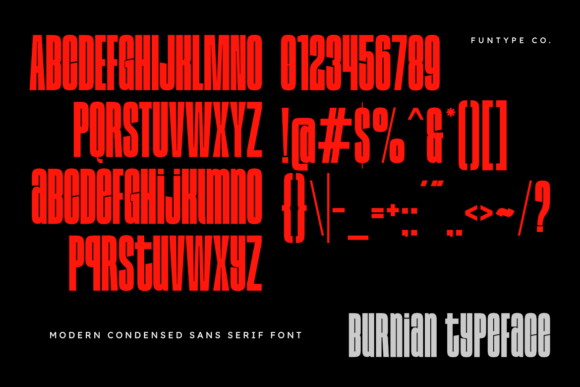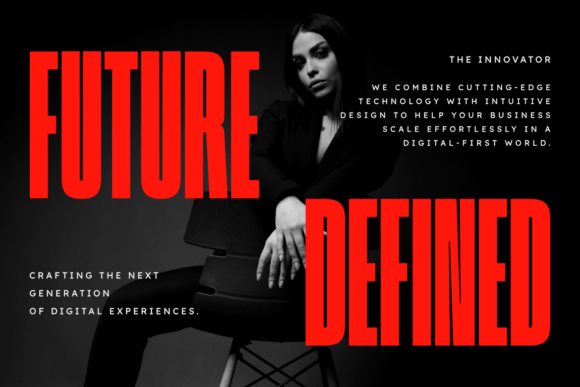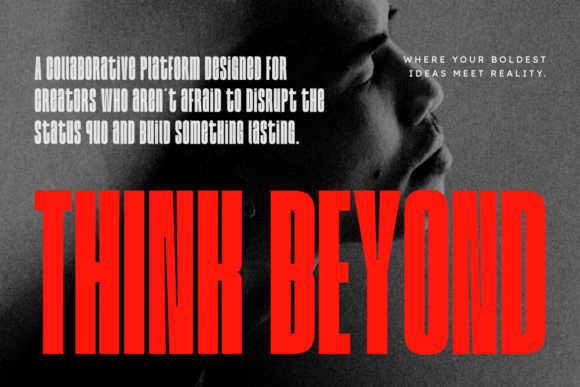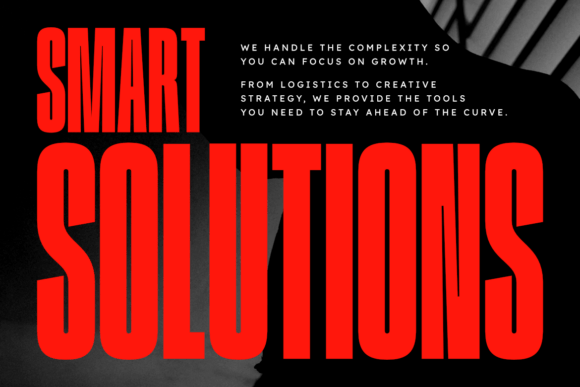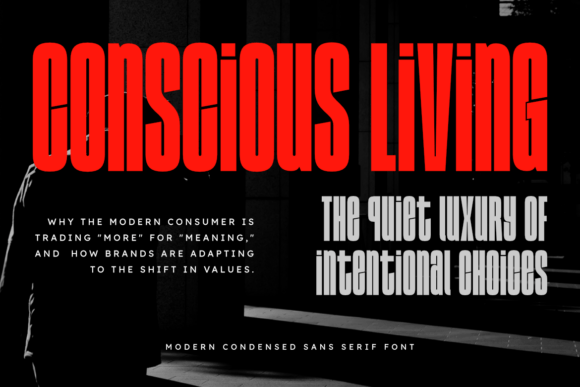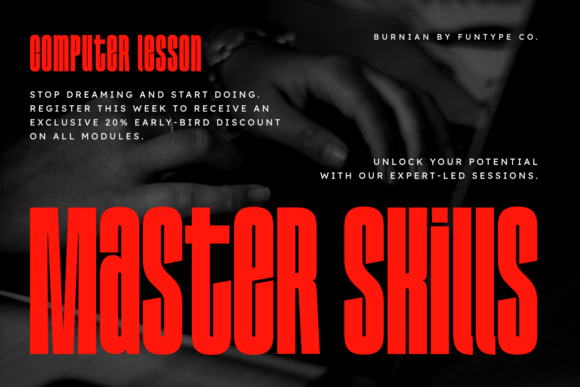
Introducing Burnian Font: Elevate Your Design with Bold Elegance
In the world of typography, a well-crafted font can make all the difference in elevating your design from ordinary to extraordinary. Burnian Font is a stunning example of a bold and elegant condensed sans serif font, specifically designed to make an impact. With its tall structure and clean geometric lines, Burnian is the perfect choice for designers and crafters looking to create strong headlines, modern posters, album covers, lifestyle graphics, branding, and high-impact advertising.
The Design Philosophy Behind Burnian
Burnian’s design is rooted in simplicity and confidence. Its clean lines and geometric structure give it a professional and striking appearance, making it ideal for designers who want to make a statement. The font’s tall and condensed structure allows for maximum impact, even at smaller sizes, making it versatile for use in a variety of applications.
Key Features of Burnian Font
- Bold and Elegant: Burnian’s bold design ensures that your text stands out, while its elegant lines add a touch of sophistication.
- Condensed Sans Serif: The font’s condensed structure makes it perfect for use in tight spaces, while its sans serif design ensures clarity and readability.
- Tall Structure: Burnian’s tall structure gives it a commanding presence, making it ideal for headlines and titles.
- Clean Geometric Lines: The font’s clean lines ensure that your design looks professional and polished.
Use Cases for Burnian Font
Burnian’s versatility makes it suitable for a wide range of design applications. Here are some ideas to get you started:
- Headlines and Titles: Use Burnian to create bold and eye-catching headlines that grab attention.
- Posters and Flyers: Create modern and striking posters and flyers with Burnian’s confident design.
- Album Covers: Give your music designs a professional edge with Burnian’s elegant and bold typography.
- Lifestyle Graphics: Use Burnian to create stunning lifestyle graphics that showcase your brand’s personality.
- Branding and Identity: Establish a strong brand identity with Burnian’s unique and memorable design.
- Advertising: Create high-impact advertisements that stand out with Burnian’s bold and confident typography.
Why Choose Burnian Font?
With so many fonts available, why choose Burnian? Here are just a few reasons why Burnian stands out:
- Unique Design: Burnian’s bold and elegant design sets it apart from other fonts.
- Versatility: The font’s versatility makes it suitable for a wide range of design applications.
- Readability: Burnian’s clean lines and geometric structure ensure excellent readability, even at smaller sizes.
- Professional Edge: Burnian’s confident design gives your visuals a striking and professional look.
In conclusion, Burnian Font is a powerful tool for designers and crafters looking to elevate their design with bold elegance. Its unique design, versatility, and readability make it an excellent choice for a wide range of applications. Whether you’re creating headlines, posters, album covers, or lifestyle graphics, Burnian is the perfect font to make your design stand out. So why wait? Try Burnian Font today and take your design to the next level!